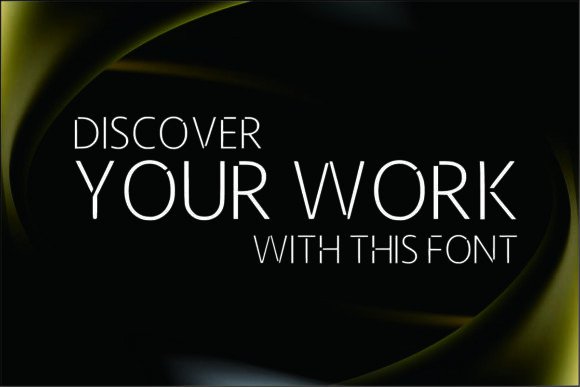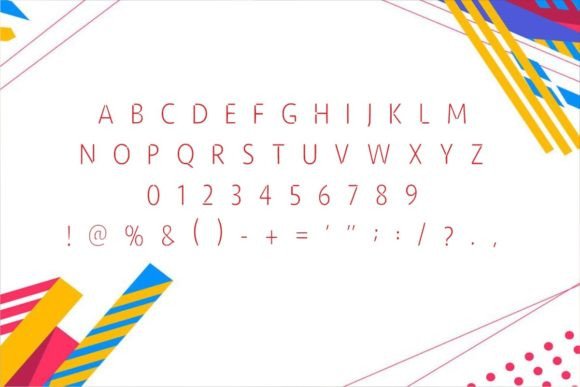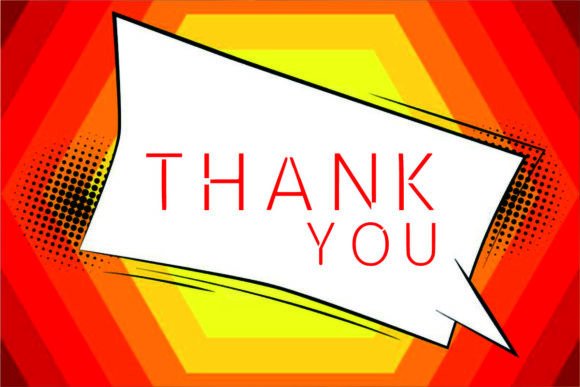
Introduction to Line Creative Font Font
Fonts play a crucial role in design, and the Line Creative Font font is a typeface that brings both character and versatility to any project. Whether you’re working on a branding project, a website, or a print design, the Line Creative Font font offers a unique style that can elevate your work.
Line Creative is a skinny vertical line display font with creative cuts.
Whatever your design topic, this font will be a great asset to your projects, as it has the potential to enhance any creation .
Key Features of Line Creative Font Font
Why Choose Line Creative Font Font?
The Line Creative Font font is more than just a typeface – it’s a design tool that helps you communicate your message with style and clarity. Its unique character set and versatile design make it suitable for a wide range of applications, from elegant invitations to bold headlines.
With its carefully crafted letterforms and balanced proportions, the Line Creative Font font ensures readability and visual appeal across all mediums.
What makes Line Creative Font font special?
The Line Creative Font font stands out with its unique design, exceptional readability, and versatility across various design applications.